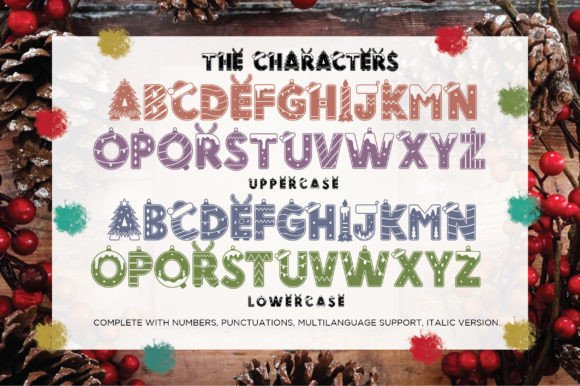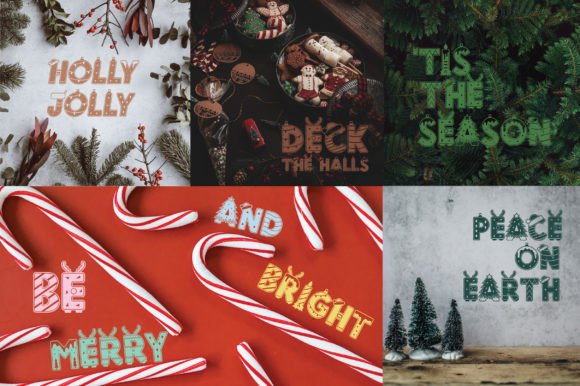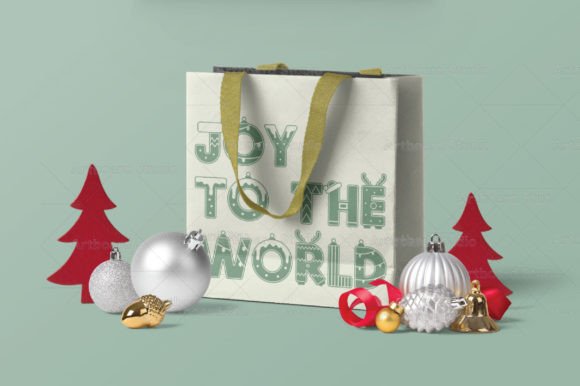
Deck the Halls with Fun Christmas Font: A Cute Decorative Font for Your Holiday Projects
Are you looking for a festive and fun font to add some holiday cheer to your Christmas projects? Look no further than the Fun Christmas Font! This adorable decorative font is specifically designed with a Christmas theme, making it perfect for creating a wide range of holiday crafts and designs. In this article, we’ll explore the features and benefits of the Fun Christmas Font, and show you how to use it to make your own unique holiday creations.
What is Fun Christmas Font?
Fun Christmas Font is a cute and playful decorative font that is designed to capture the spirit of the holiday season. With its festive and fun design, this font is perfect for adding a touch of Christmas magic to your projects. Whether you’re a designer, crafter, or DIY enthusiast, Fun Christmas Font is a great addition to your font collection.
Features of Fun Christmas Font
So, what makes Fun Christmas Font so special? Here are just a few of its key features:
- Cute and playful design: Fun Christmas Font features a unique and adorable design that is sure to add a touch of holiday cheer to your projects.
- Christmas theme: This font is specifically designed with a Christmas theme, making it perfect for holiday crafts and designs.
- Versatile: This font can be used for a wide range of projects, from posters and t-shirts to invitations and Christmas cards.
Uses for Fun Christmas Font
So, what can you create with Fun Christmas Font? The possibilities are endless! Here are just a few ideas to get you started:
- Posters: Create eye-catching posters to advertise your holiday events or promotions.
- T-shirts: Design fun and festive t-shirts for your family, friends, or customers.
- Invitations: Create custom invitations for your holiday parties or events.
- Christmas cards: Design personalized Christmas cards for your loved ones.
- Holiday crafts: Use Fun Christmas Font to add a touch of holiday cheer to your DIY crafts, such as ornaments, gift tags, and more.
Tips for Using Fun Christmas Font
Here are a few tips for getting the most out of Fun Christmas Font:
- Experiment with different colors: Fun Christmas Font looks great in a variety of colors, so don’t be afraid to experiment and find the perfect hue for your project.
- Pair with other fonts: Try pairing Fun Christmas Font with other fonts to create a unique and interesting design.
- Use it sparingly: While Fun Christmas Font is cute and playful, it can be overwhelming if used too much. Use it sparingly to add a touch of holiday cheer to your project.